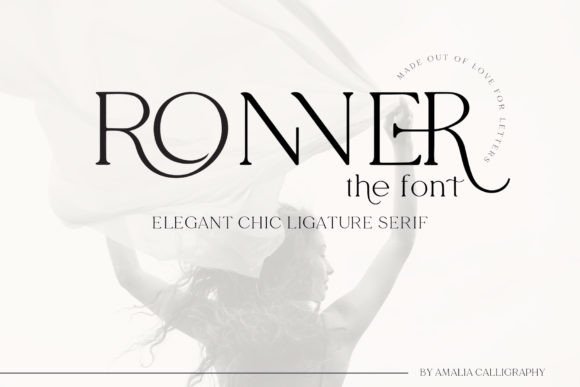
In a digital world teeming with content, your website logo stands as a beacon of identity, captivating the attention of visitors and leaving a lasting impression. Ronner Font, an exquisite serif creation by Amalia Bucur, emerges as the ultimate choice for crafting a logo that exudes elegance and class.
Ronner's allure lies in its delicate balance, neither too thin nor too thick, creating a visual harmony that complements a wide range of design aesthetics. Its carefully crafted curves and refined details evoke a sense of sophistication and timelessness, ensuring your logo transcends fleeting trends and establishes a strong brand presence.
With Ronner as your ally, you embark on a journey of creative expression, transforming your logo into a masterpiece that speaks volumes about your brand's identity. Whether your vision is for a classic and timeless emblem or a contemporary and edgy design, Ronner's versatility knows no bounds.
Beyond its undeniable aesthetic appeal, Ronner possesses an inherent functionality that makes it ideal for web design. Its crisp and legible letterforms ensure seamless readability even at small sizes, guaranteeing that your logo remains impactful even on the most compact screens.
Choosing Ronner as your logo's foundation is a testament to your discerning taste and unwavering commitment to excellence. It speaks to your desire to make a statement, to leave an indelible mark on the digital landscape. Embrace the power of Ronner and watch as your logo blossoms into a symbol of distinction and enduring appeal, propelling your brand towards new heights of success.